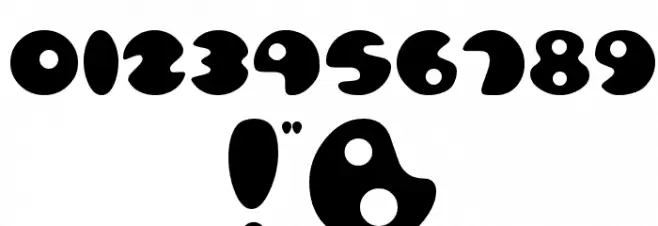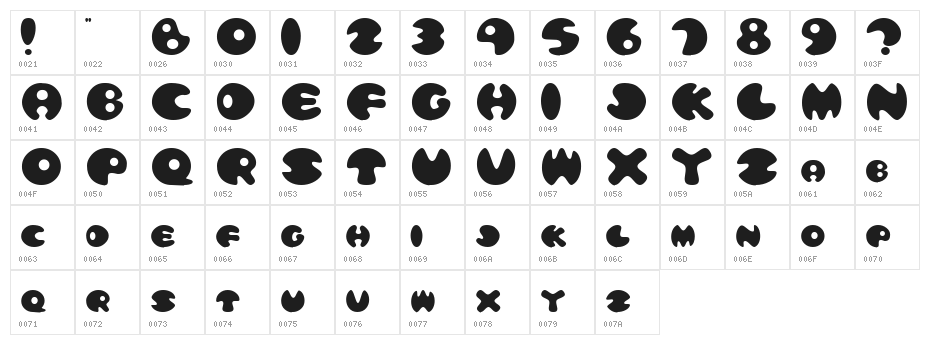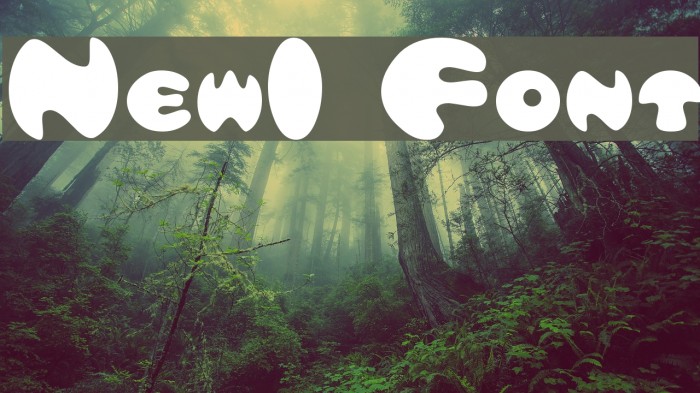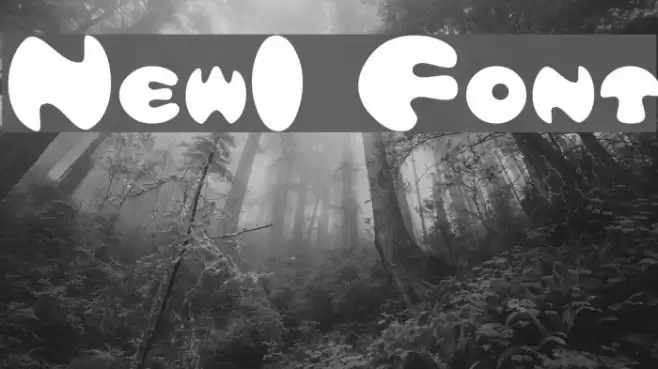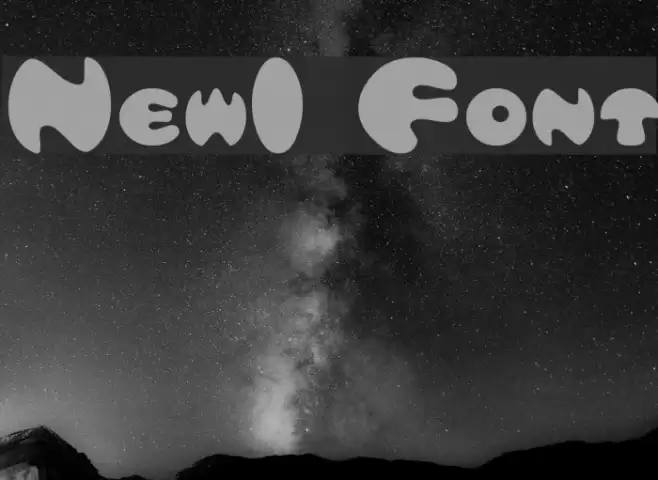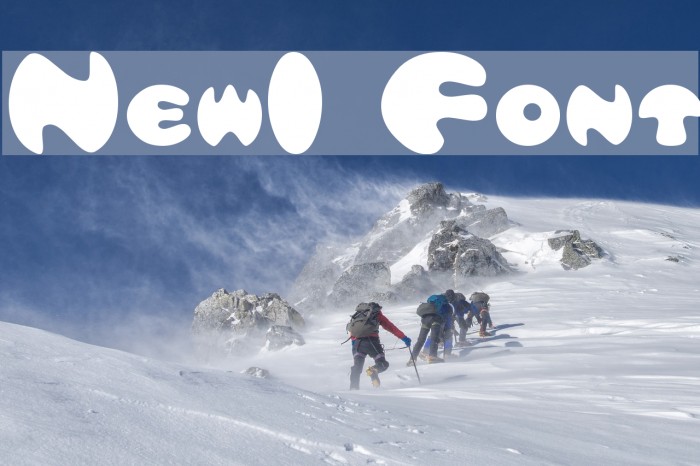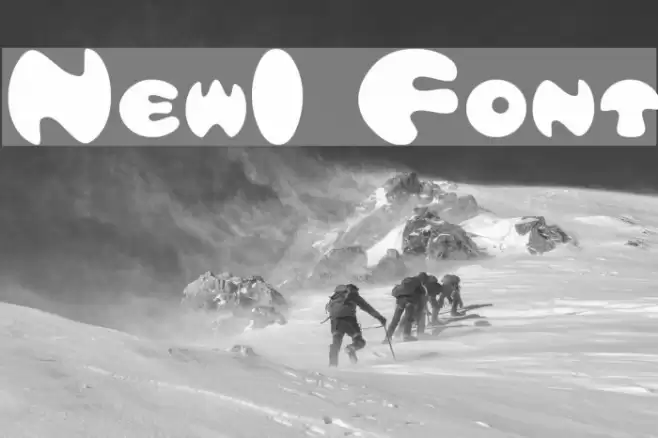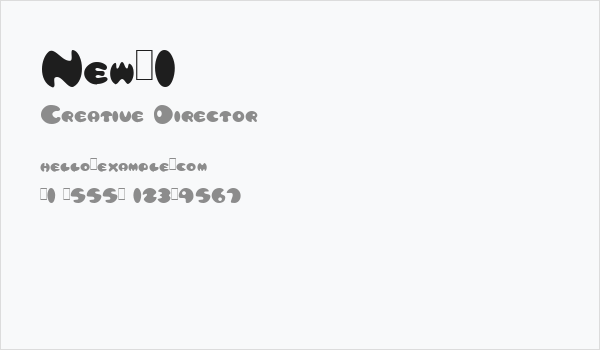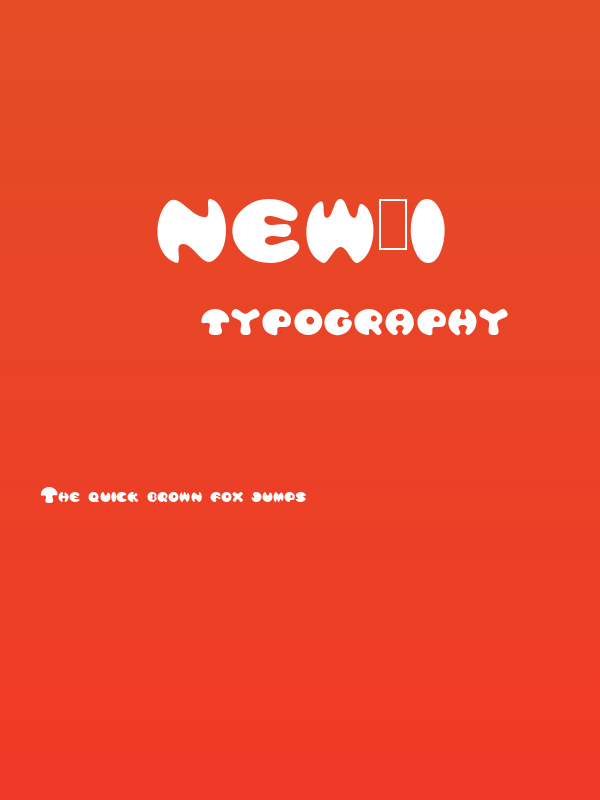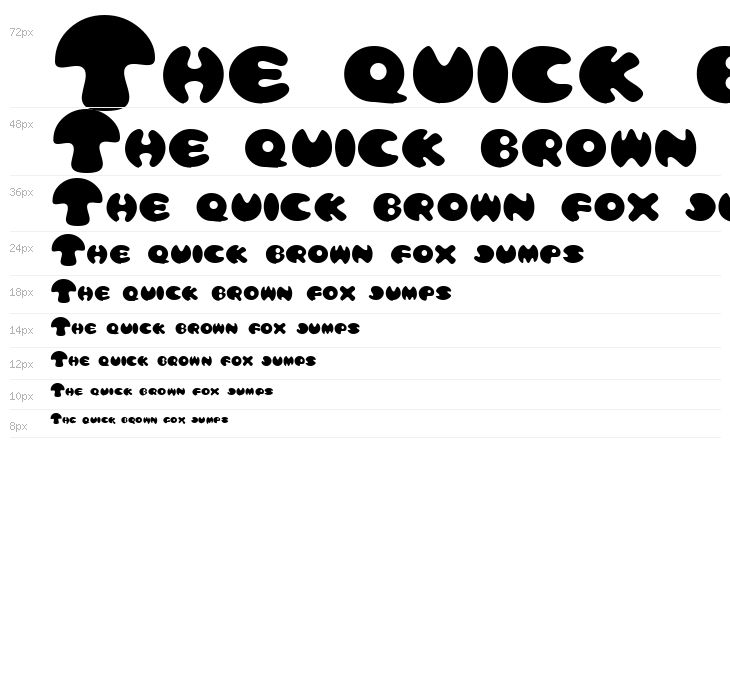
New_1 Font
New_1 Description
This playful and bold font features thick, rounded characters with a bubbly appearance. Each letter and number is designed with a unique, whimsical style that gives off a fun and energetic vibe. The characters are uniformly bold, with a consistent thickness throughout, creating a cohesive look. The font's design is reminiscent of playful, cartoonish themes, making it ideal for projects that require a light-hearted and informal touch. The spacing between characters is tight, enhancing the compact and dense appearance of the text. The font's high contrast in stroke thickness adds to its bold and eye-catching nature.
| Proposed Projects | Ideal for children's books, playful branding, party invitations, and cartoon-themed designs. |